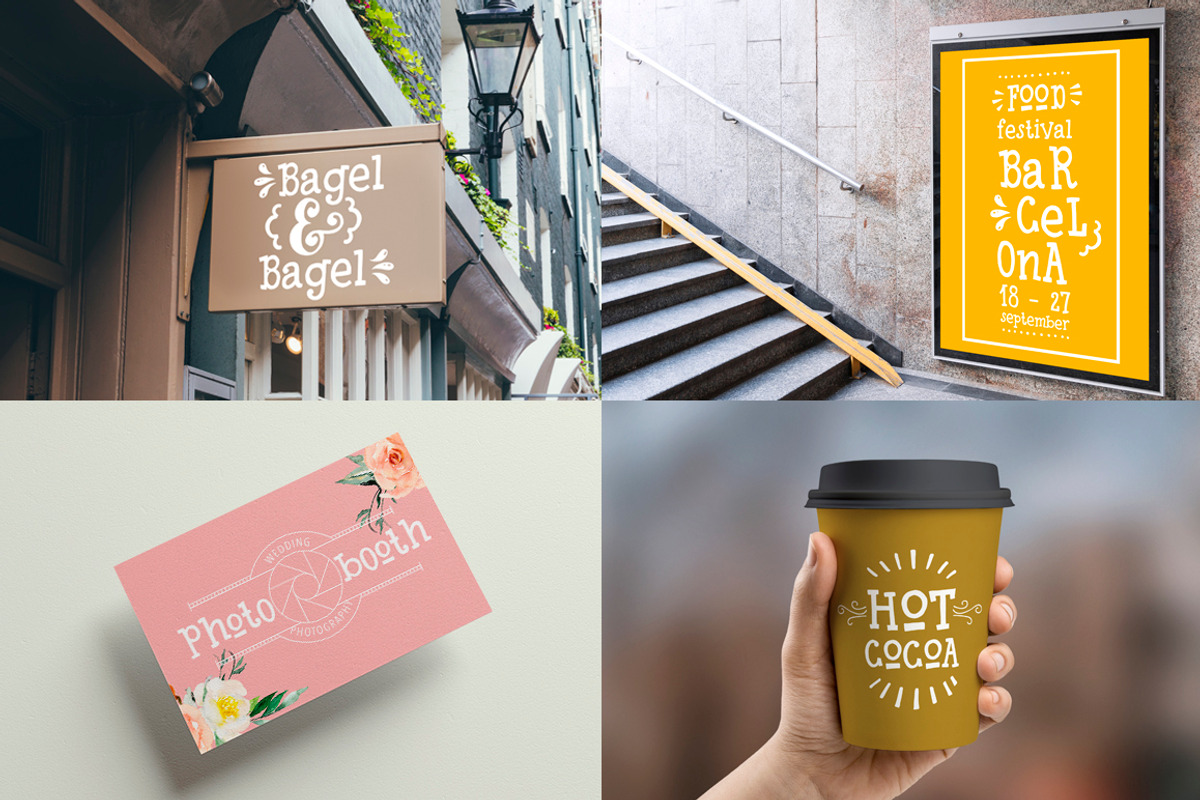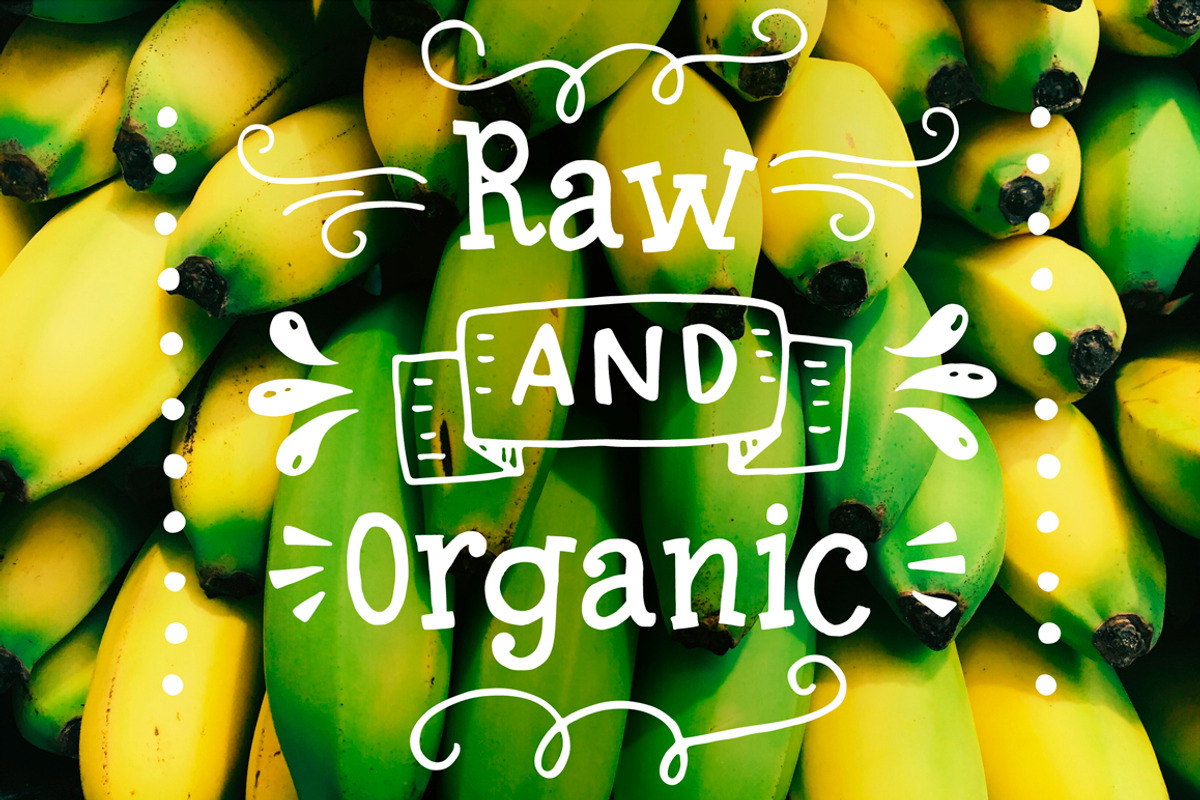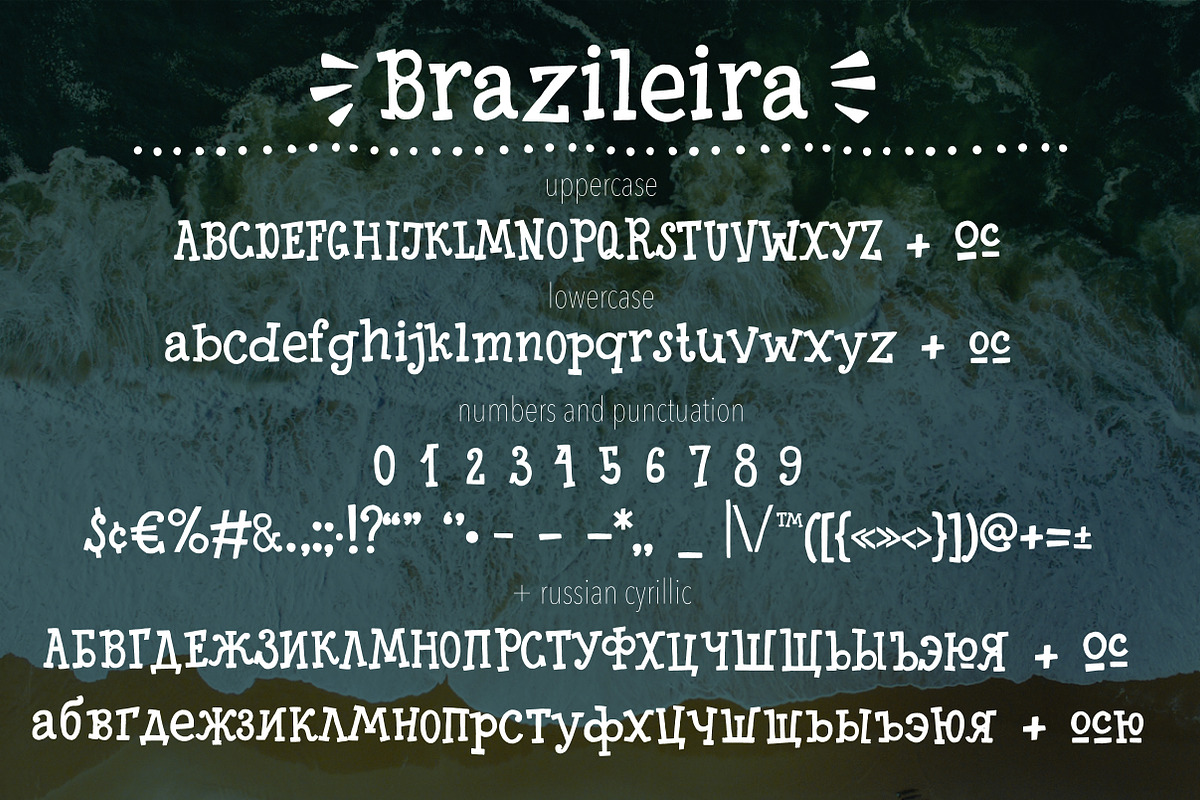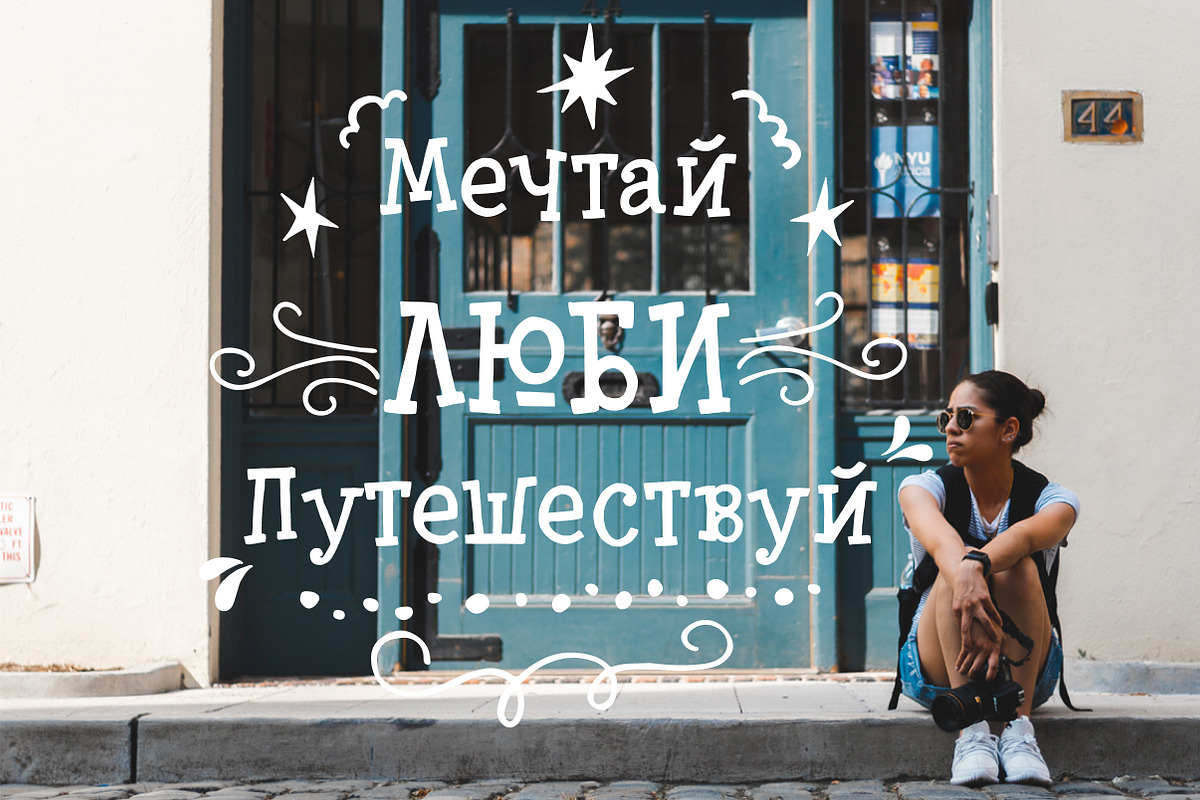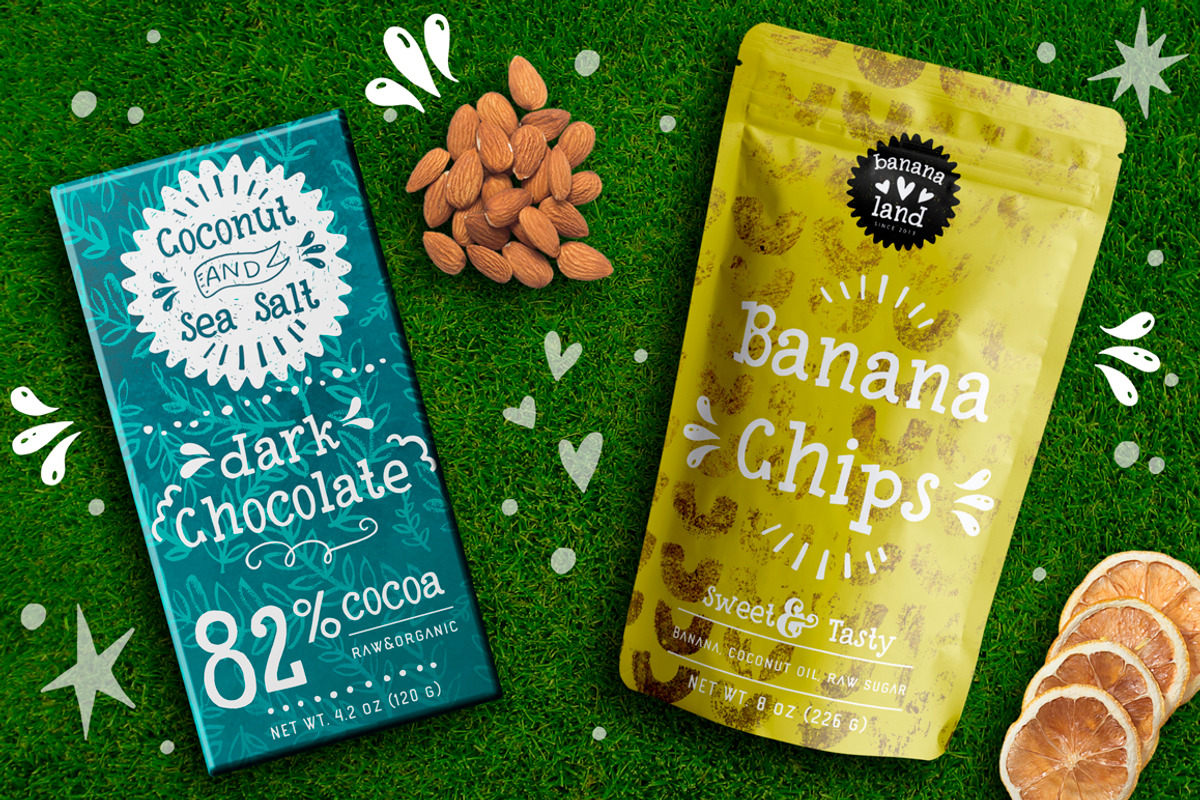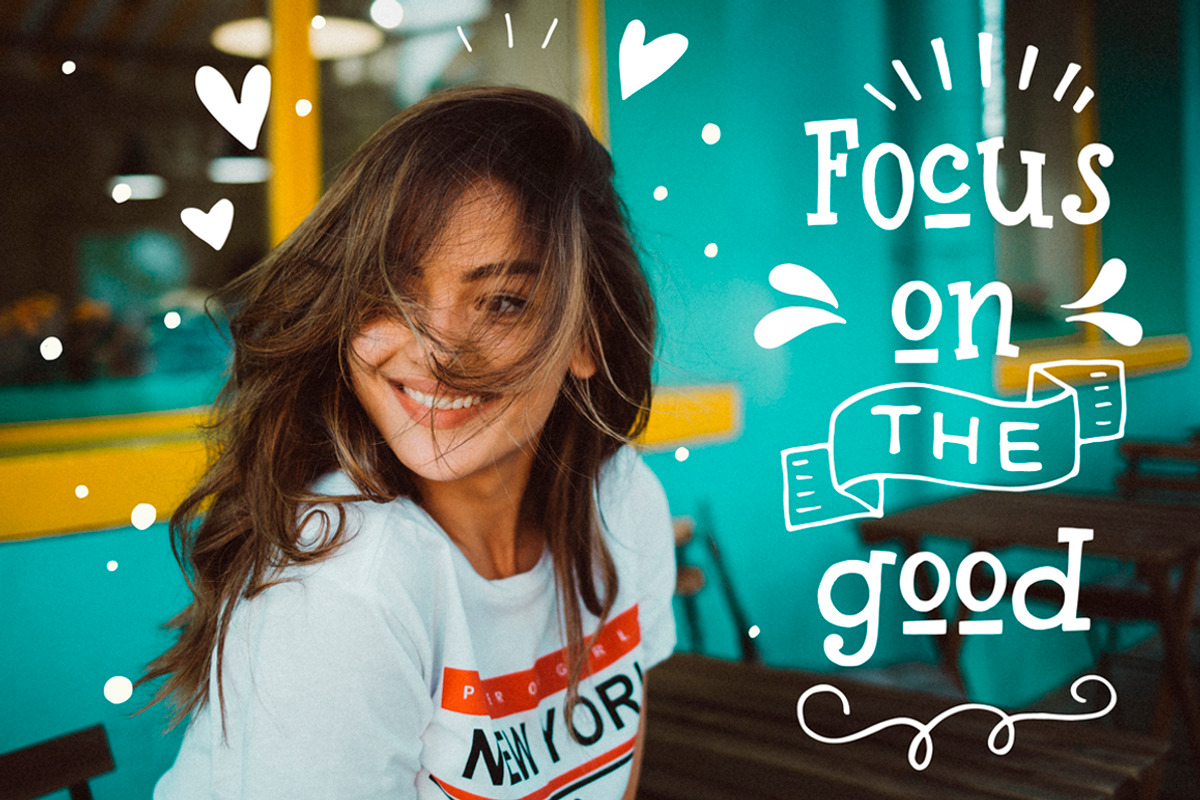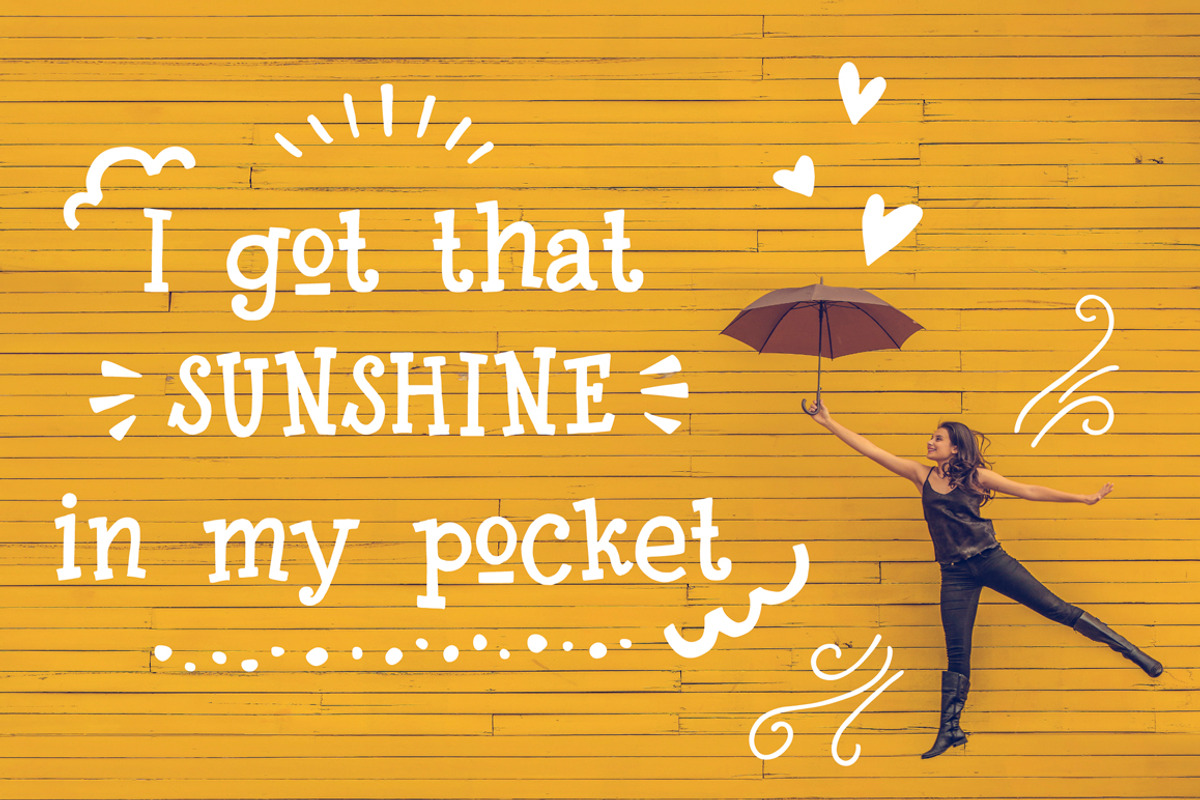
Brazileira - Slab Serif Font
Meet our new hand drawn fun slab serif font Brazileira with organic texture and extra doodles!
Extensive language support is included and besides main european languages we also include cyrillic characters, so you can type in Russian and Bulgarian languages. You can just type a message in the text box below and see if all characters you’ll need are there.